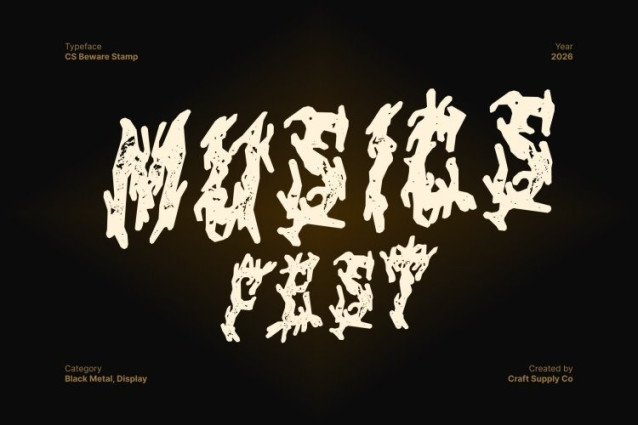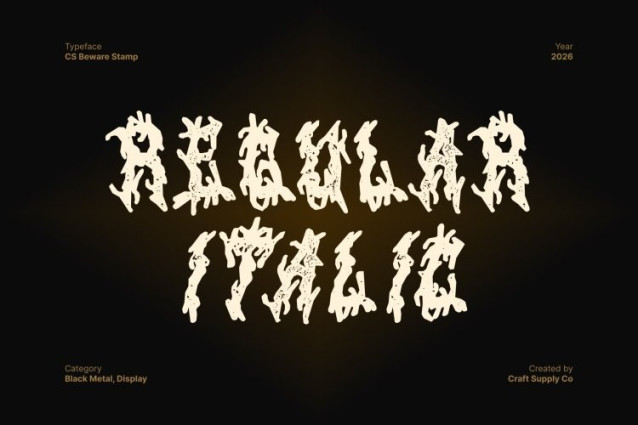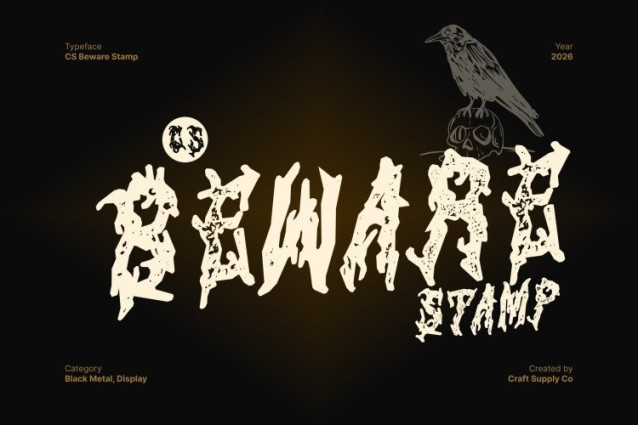
CS Beware Stamp Font This is a bold black metal display font inspired by the extreme, uncompromising aesthetics of black metal culture. Featuring sharp, angular letterforms with jagged edges and chaotic detailing, it embodies raw rebellion and dark intensity. The added stamp effect introduces distressed textures and rough ink impressions, amplifying its brutal, underground character with an aged, ritualistic feel.
Raw Power with Distorted Vintage Texture
Designed to strike with force, this font delivers aggression in every character. Its irregular, fractured shapes combined with stamped imperfections create an anarchic, hand-pressed appearance evoking old gig posters, underground zines, and worn album prints. The result is a violent visual impact that feels raw, unfiltered, and unapologetically extreme.
Perfect for Black Metal Culture and Dark Visual Themes
Rooted deeply in black metal aesthetics, this is ideal for album covers, band logos, merchandise, gig posters, and alternative visual art. The fusion of jagged gothic forms and distressed stamp texture gives every design an unmistakable edge dark, chaotic, and defiant.
Unleash Darkness with Brutal Authenticity
For projects that demand intensity, rebellion, and uncompromising darkness, this font delivers an unforgettable presence. Its black metal DNA, enhanced by a gritty stamped finish, transforms every composition into a powerful statement of raw energy, darkness, and underground authenticity.